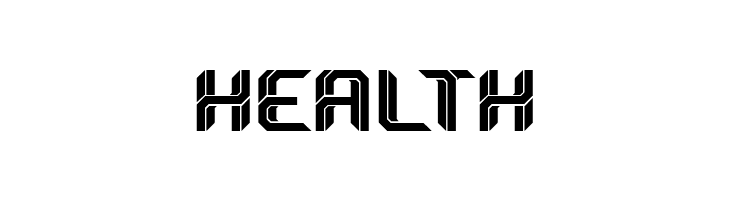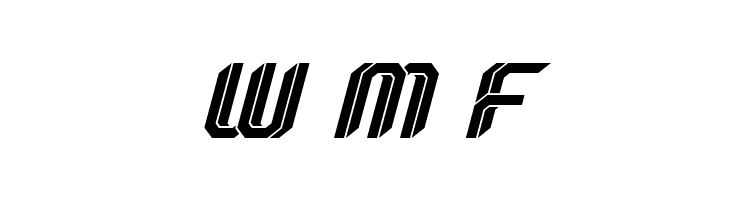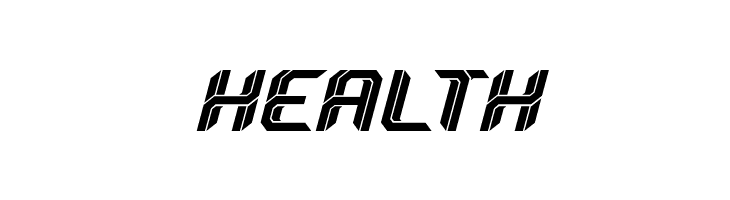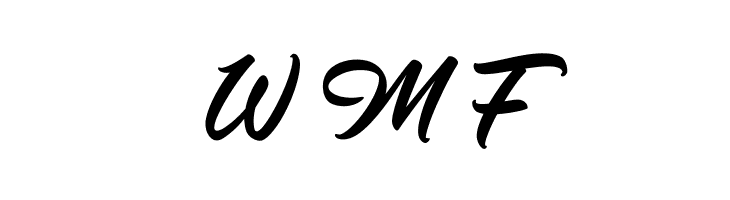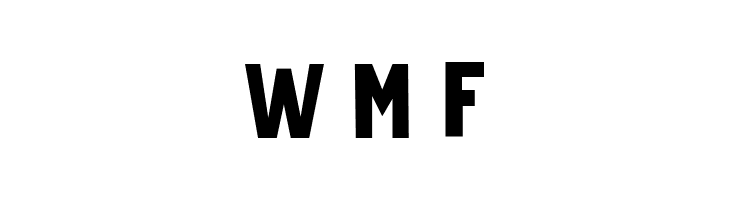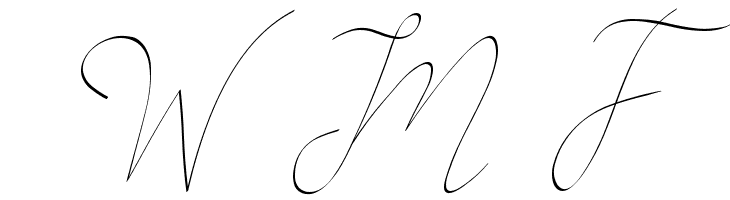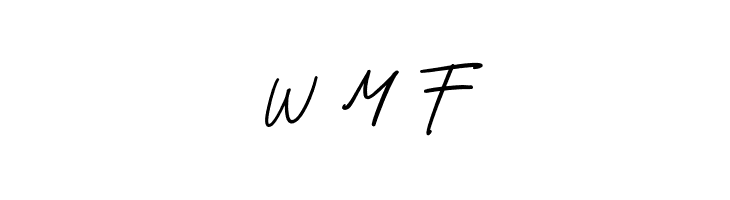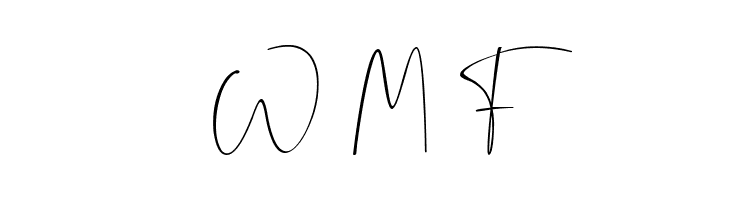
A flowing, cursive font with elegant, sweeping lines and connected characters.
A bold, geometric font with a sporty and futuristic aesthetic.
A bold, italicized font with sharp, geometric lines and a sporty, futuristic style.
A bold, cursive font with dynamic and flowing characters.
A bold, playful font with a hand-drawn feel and creative special characters.
A playful and elegant script font with flowing, cursive design.
A playful, bold font with a stitched outline effect, ideal for creative projects.
An elegant script font with flowing, interconnected letters and refined curves.
A flowing, cursive font with elegant, handwritten strokes.
A playful and elegant handwritten font with fluid, dynamic strokes.